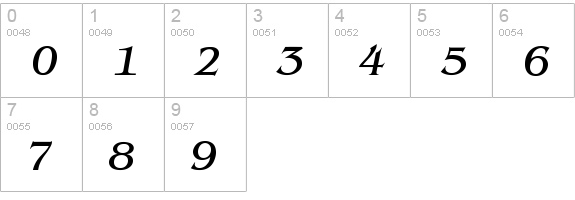
Benguiat* Book Italic is a comfortable, highly readable, italic variant in the Benguiat* typeface family \xE2\x80\x94 well suited to long-form body text, articles, and editorial content.
Benguiat Book Italic font exudes elegance and sophistication, making it perfect for adding a touch of class to any design project. With its graceful curves and slanted angles, this font effortlessly captures attention and conveys a sense of refined style. The italicized version of Benguiat Book adds a dynamic flair to the classic typeface, making it ideal for titles, headings, and other prominent text elements. Whether used in print or digital media, this font commands a presence that is both timeless and modern. Best of all, Benguiat Book Italic font is freely available to download at FontsMarket.com. Embrace the beauty and versatility of this exquisite typeface for your next creative endeavor, and watch as your designs come to life with a touch of sophistication.